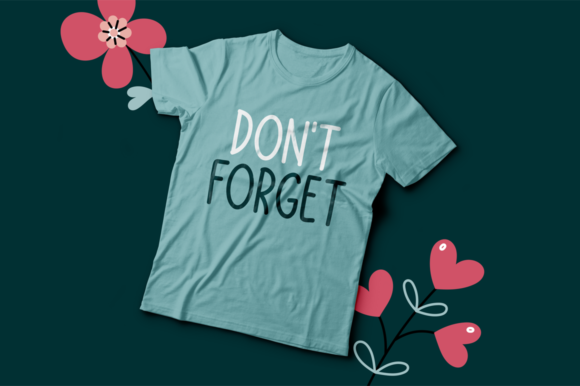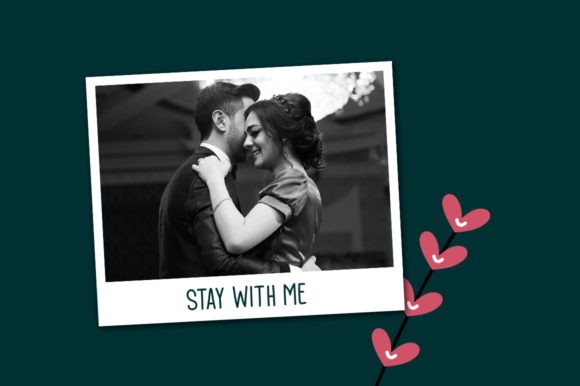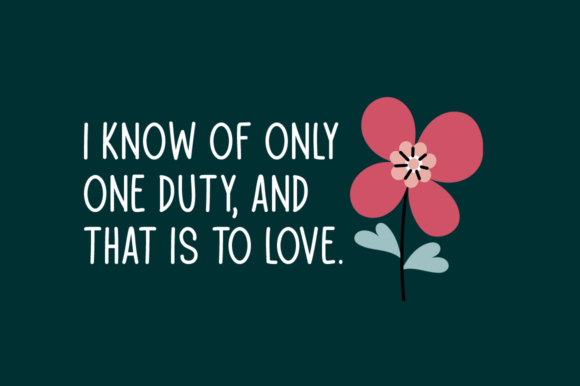
Introduction to Mesmerize Me Font
Have you ever been working on a creative project and stumbled upon the perfect font that elevates your entire design? That feeling of excitement and satisfaction is what we’re about to share with you, courtesy of the Mesmerize Me Font. This stunning handwritten font is sure to captivate your audience and leave a lasting impression.
As designers, we’re always on the lookout for unique design resources that can give our work an edge. The Mesmerize Me Font is an excellent addition to any design arsenal, offering a high-quality, free download that’s perfect for a wide range of applications, from stationery and logos to t-shirts and website headers. With its versatility and aesthetic appeal, this font is sure to become a go-to choice for designers and creatives alike.
Key Features of Mesmerize Me Font
- High-quality design resource ideal for creative projects, including graphics, logos, and digital art.
- Unique, mesmerizing design that can add an extra layer of visual interest to any project.
Honest Review: Mesmerize Me Font
As a designer, I’m always on the lookout for unique and high-quality design resources to elevate my creative projects. The Mesmerize Me Font has been a recent addition to my design arsenal, and I’m excited to share my thoughts on this intriguing font.
What works well: ✨ The Mesmerize Me Font offers a range of styles, from elegant to playful, making it a versatile addition to any design project. I appreciate the transparent background option, which allows for seamless integration with other design elements. The high-quality vector files ensure crisp and clear typography, even when scaled up or down.
What doesn’t work so well: ⚠️ While the font is free to download, the lack of extensive language support is a limitation. Additionally, the font may not be suitable for large body text, as it’s primarily designed for headings and titles.
Overall, I’m impressed with the Mesmerize Me Font’s unique charm and versatility. It’s an excellent choice for designers looking to add a touch of elegance or whimsy to their creative projects. As a free download, it’s an excellent resource to have in your design toolkit.
- Unique and versatile design
How to Use Mesmerize Me Font
The Mesmerize Me Font is a high-quality design resource ideal for creative projects. This font offers a unique and captivating style that can elevate any visual content.
Tips for Getting the Most Out of Mesmerize Me Font
For optimal results, use the Mesmerize Me Font on a transparent background to showcase its unique style. Experiment with different font sizes and colors to create visually appealing content.
The Mesmerize Me Font is ideal for:
– Social media graphics
– Blog posts and articles
– Infographics and presentations
– Branding and marketing materials
Alternatives to Mesmerize Me Font
The Great Vibes Font is a high-quality, handwritten font perfect for creative projects that require a touch of elegance. It features a transparent background, making it ideal for designs that need to be layered.
Use it for: Invitations, quotes, and other design elements that need a personal touch. It compares to Mesmerize Me Font in its playful and whimsical feel, but with a more refined and sophisticated appearance.
Pacifico is a beautiful, high-quality script font that works well for design projects that require a sense of luxury and sophistication. It features a transparent background and is available for free download.
Use it for: Logos, branding, and other design elements that need to convey a sense of elegance and refinement. It compares to Mesmerize Me Font in its flowing and cursive feel, but with a more modern and sleek appearance.